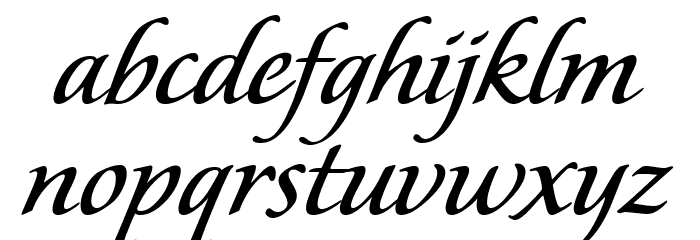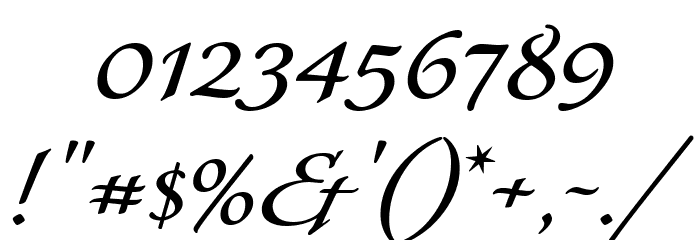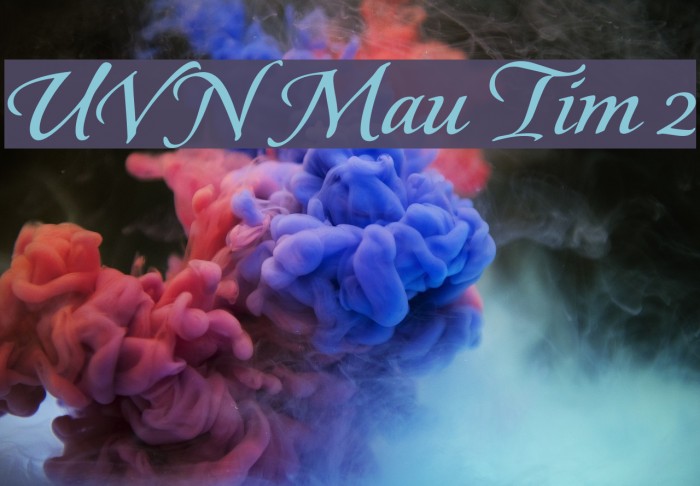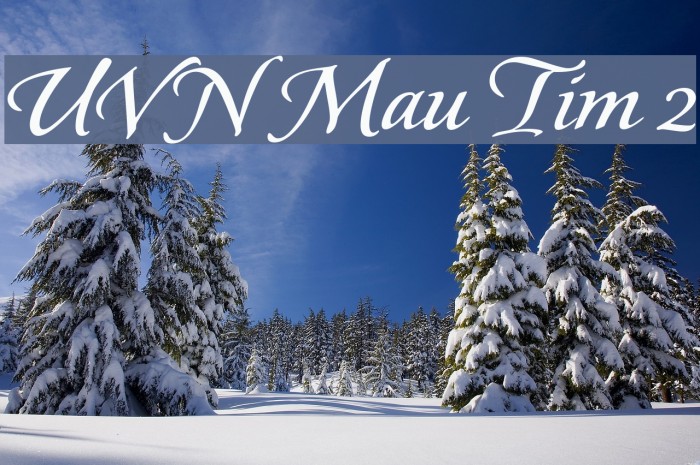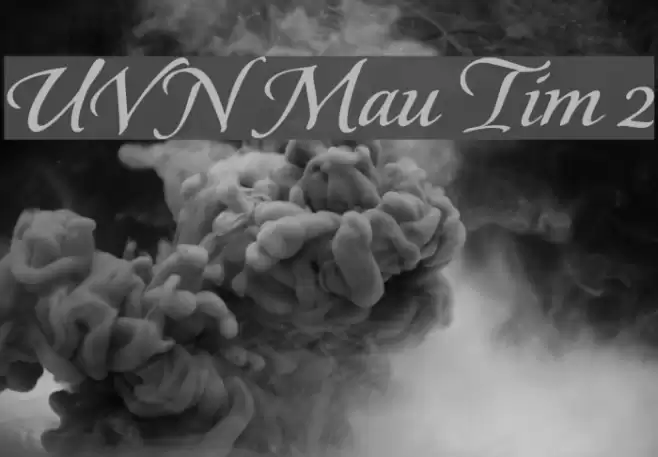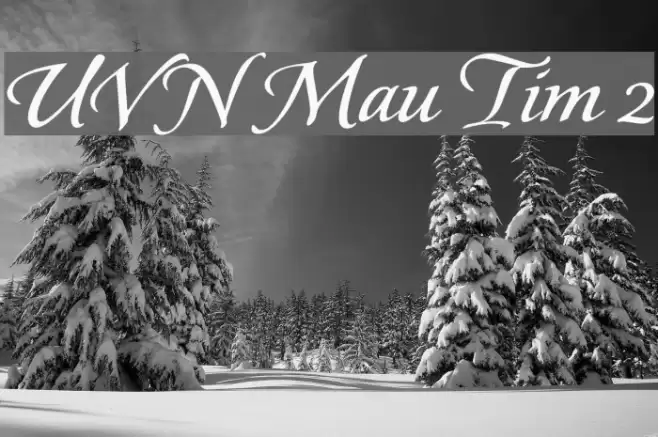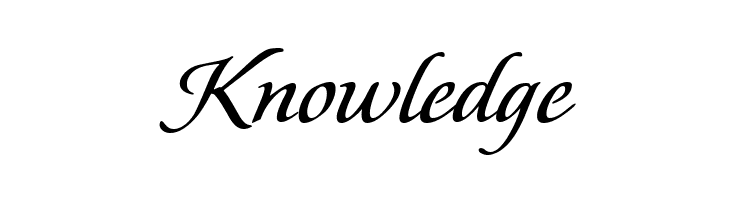
UVN Mau Tim 2 Font
This elegant script font features flowing, cursive letterforms with a classic and sophisticated appearance. The uppercase letters are ornate, with sweeping curves and flourishes that add a touch of grandeur. The lowercase letters maintain a consistent style, with smooth connections and a slight slant that enhances readability. Numbers and special characters are designed to match the overall aesthetic, ensuring a cohesive look across all text elements. This font is ideal for projects that require a touch of elegance and formality, such as wedding invitations, certificates, and upscale branding.
An elegant script font with flowing, cursive letterforms and classic style.
- Proposed Projects: Ideal for wedding invitations, certificates, upscale branding, and formal event materials.
- Overall Style: Classic
- Use Case: Headlines, Invitations, Branding